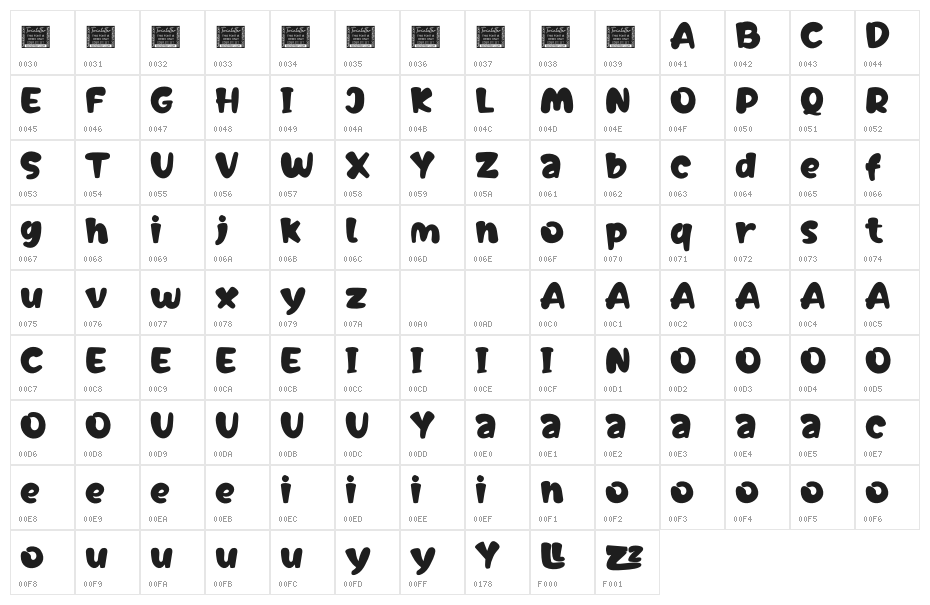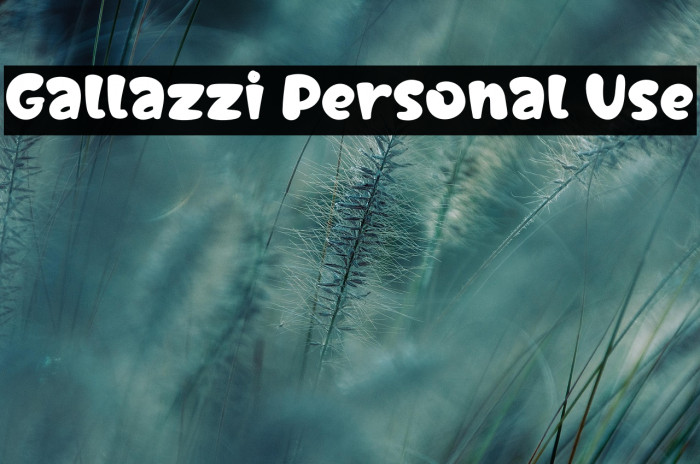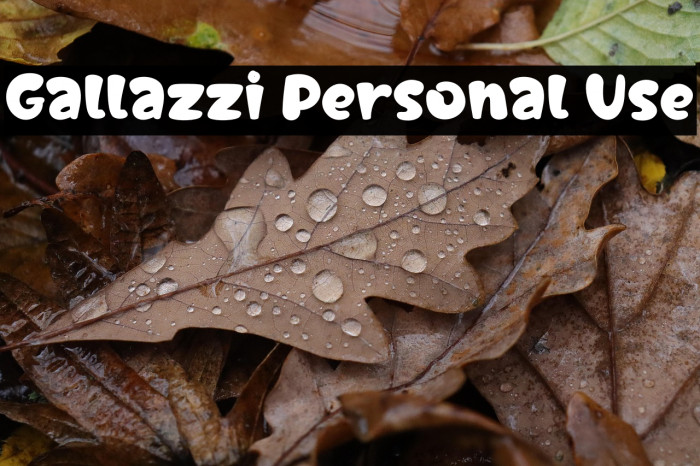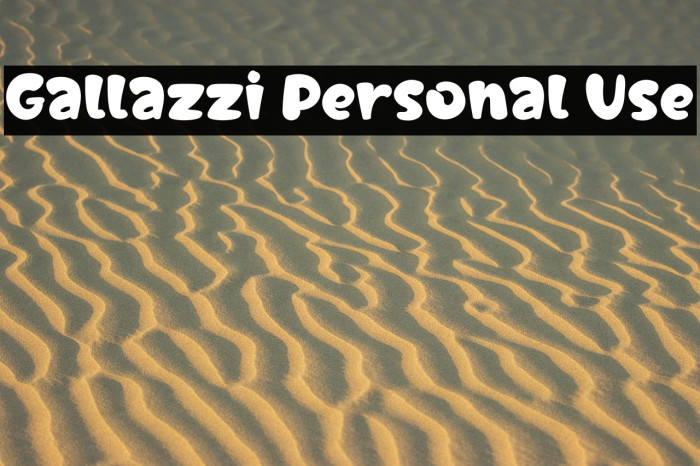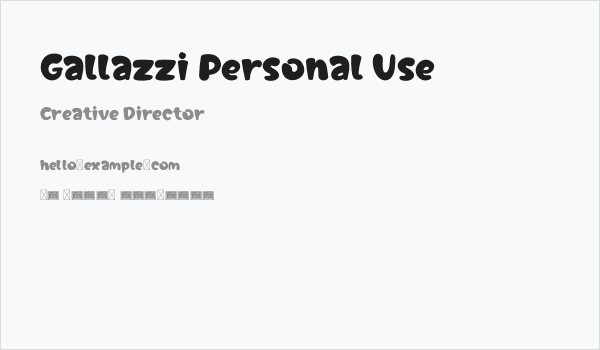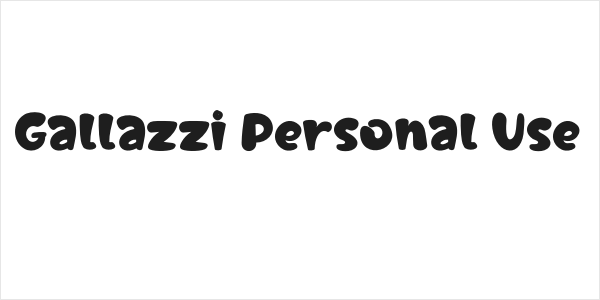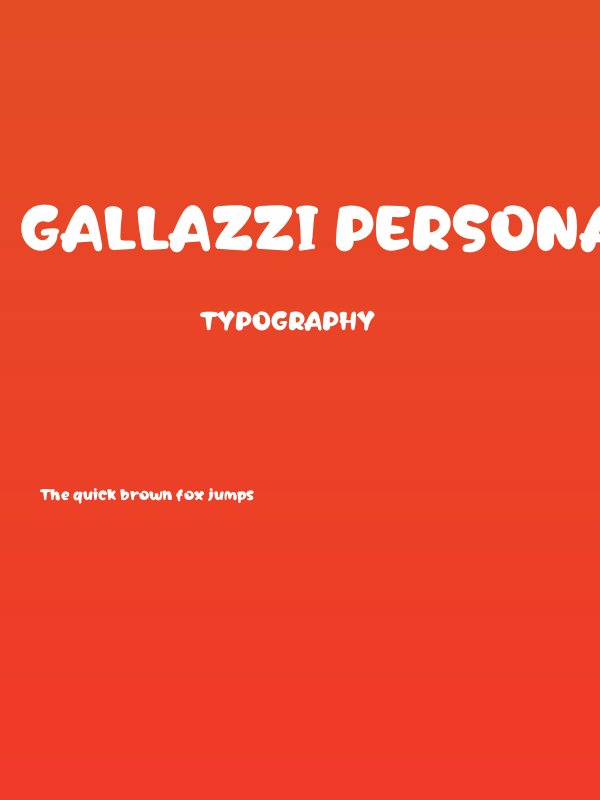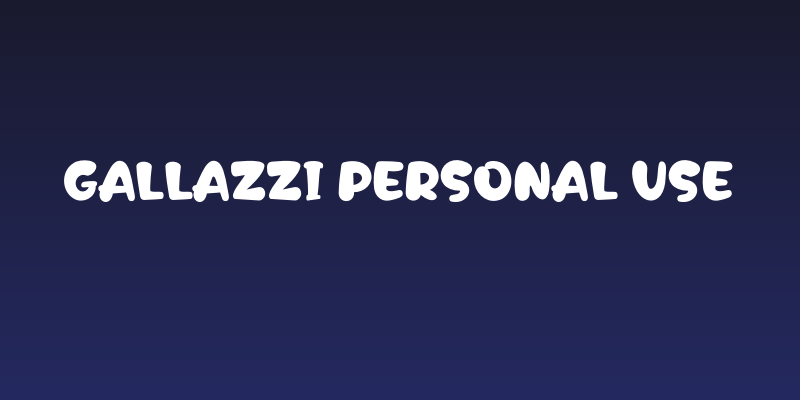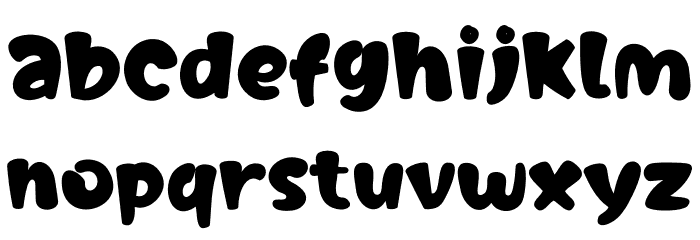
Gallazzi Personal Use Font
Gallazzi Personal Use Description
This font features a playful and bold style, characterized by its thick, rounded strokes and a slightly irregular baseline that gives it a hand-drawn appearance. The uppercase letters are robust and commanding, while the lowercase letters maintain a consistent flow, enhancing its casual and friendly vibe. The font's design is reminiscent of comic or cartoon styles, making it ideal for projects that require a fun and approachable aesthetic. Its boldness ensures high visibility, making it suitable for headlines or titles that need to stand out.
| Overall Style | Playful, Casual |
| Proposed Projects | Ideal for children's books, comic strips, playful branding, and eye-catching headlines. |